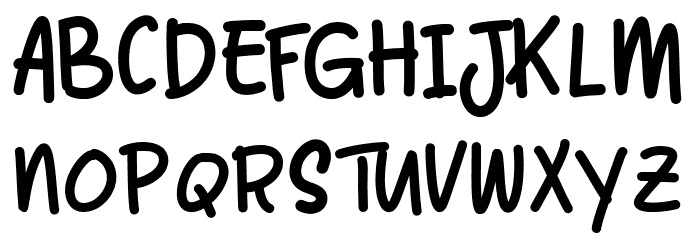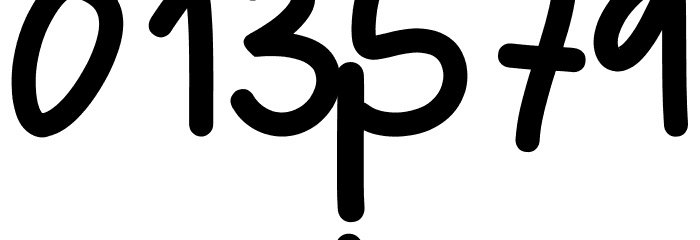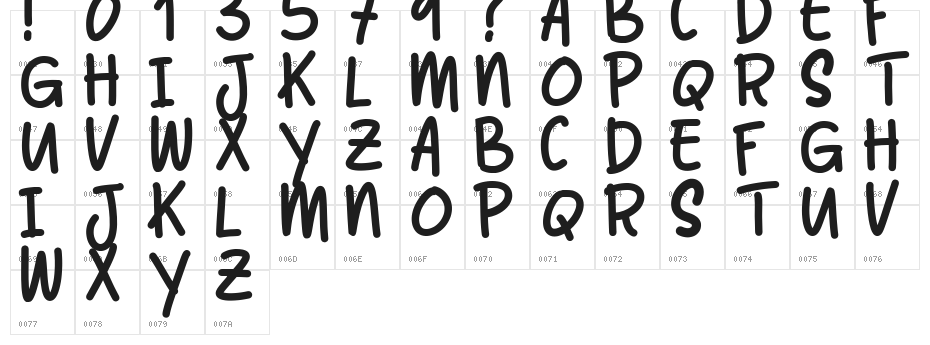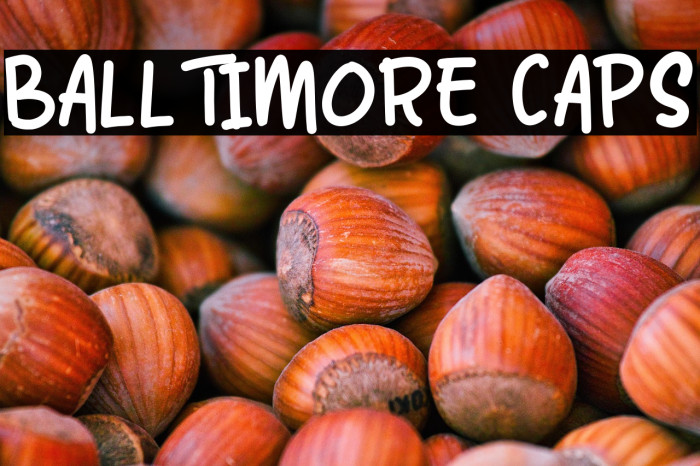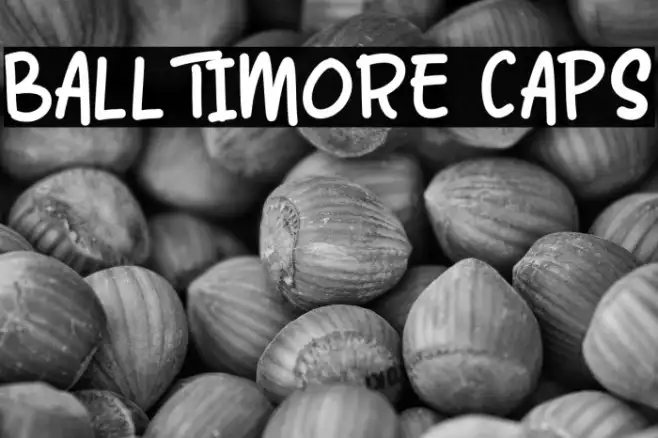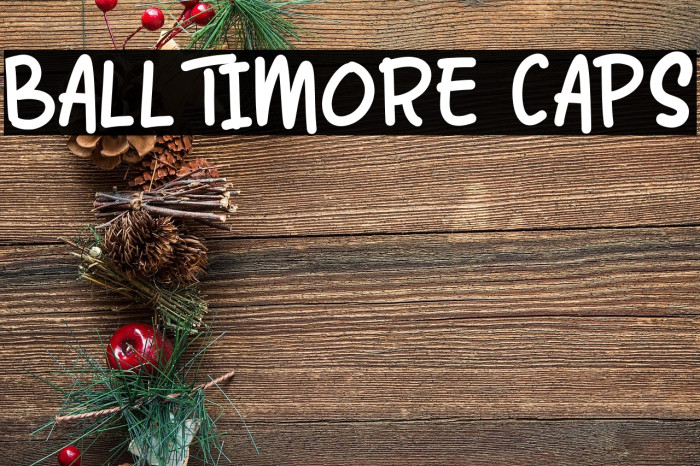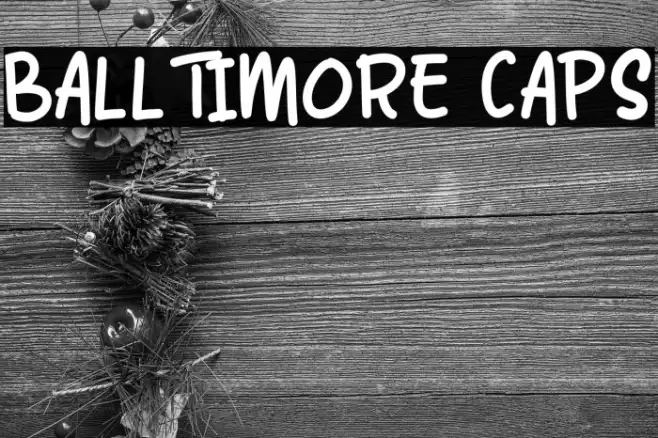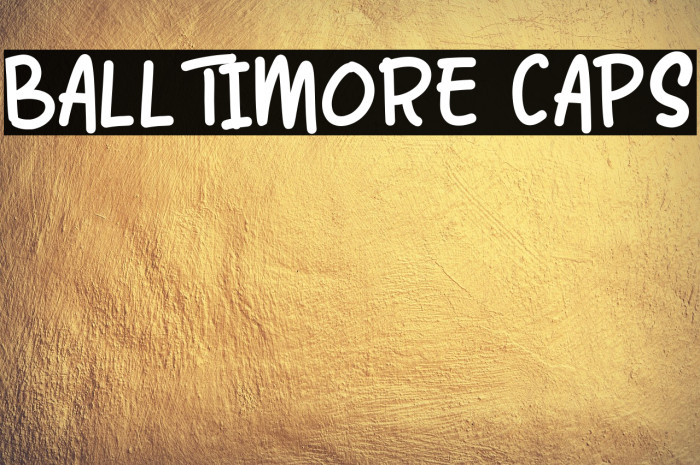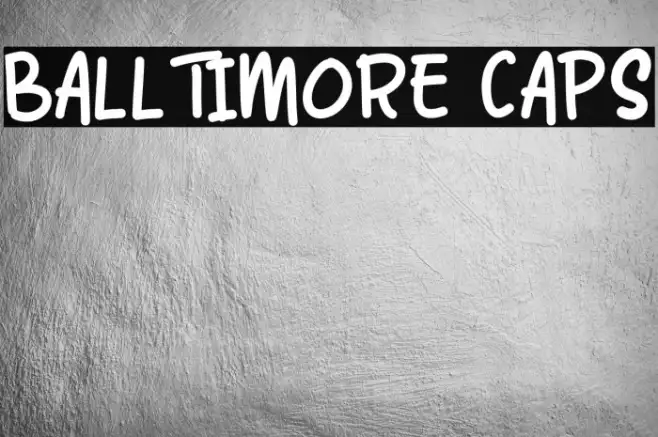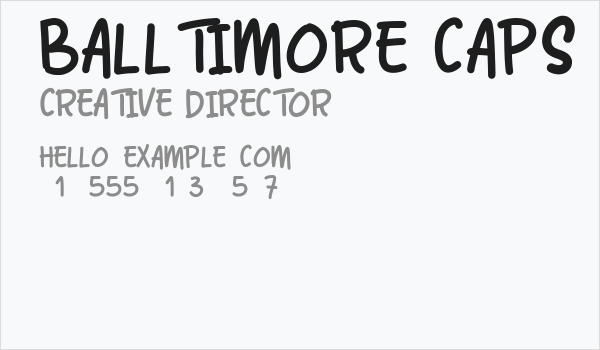
Balltimore Caps Font
This font features a playful and bold handwritten style, characterized by its rounded and slightly irregular letterforms. The uppercase and lowercase letters maintain a consistent weight, giving the font a cohesive appearance. The numbers and special characters follow the same playful aesthetic, making it suitable for informal and creative projects. The strokes are thick and uniform, providing a strong presence on the page. The overall look is casual and friendly, making it ideal for designs that aim to convey warmth and approachability.
A bold, playful handwritten font with rounded, irregular letterforms.
- Font: Balltimore Caps
- Proposed Projects: Ideal for children's books, greeting cards, playful branding, and social media graphics.
- Category: Handwritten
- Overall Style: Casual
- Use Case: Headlines, Logos, Informal Text